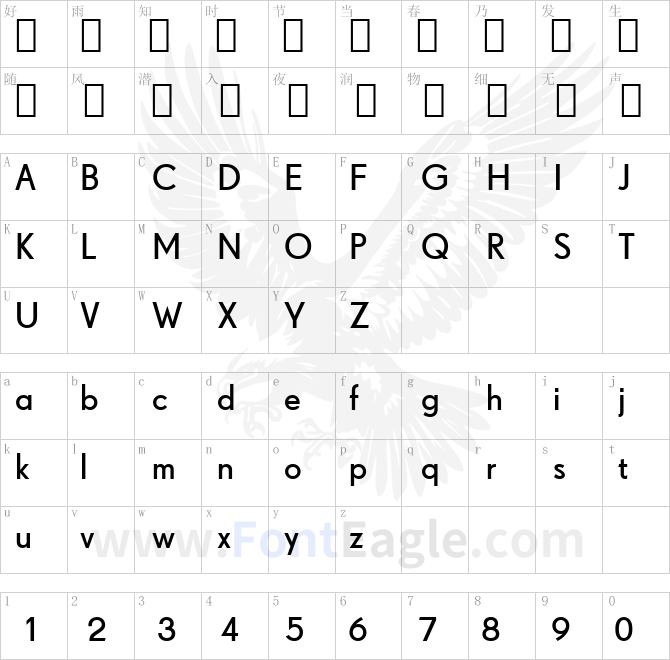
- Font name:Drescher Grotesk BT SemiBold
- Font Subfamily ID:Drescher Grotesk BT Semi-Bold, Geometric 416
- Font Full Name:Drescher Grotesk BT SemiBold